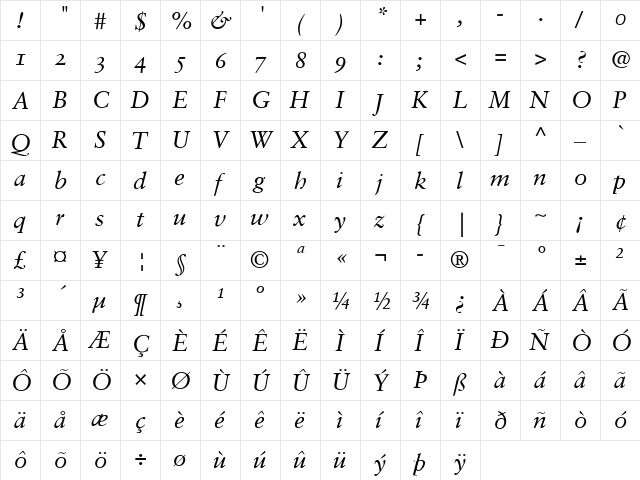
Sabon RomanOsF Italic
Design Context for Sabon RomanOsF Typeface
Sabon RomanOsF is a composed and adaptable typeface that performs quietly and consistently across a wide range of design contexts. Its italic angle brings a sense of urgency and motion to the letterforms.
Pro Tip: Use Sabon RomanOsF for emphasis, pull quotes, and subheadings where its slanted energy can add rhythm to the layout.